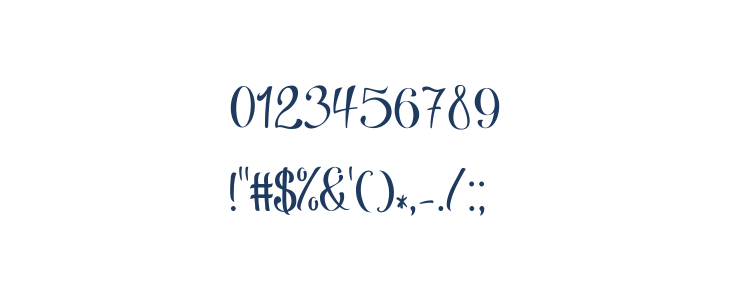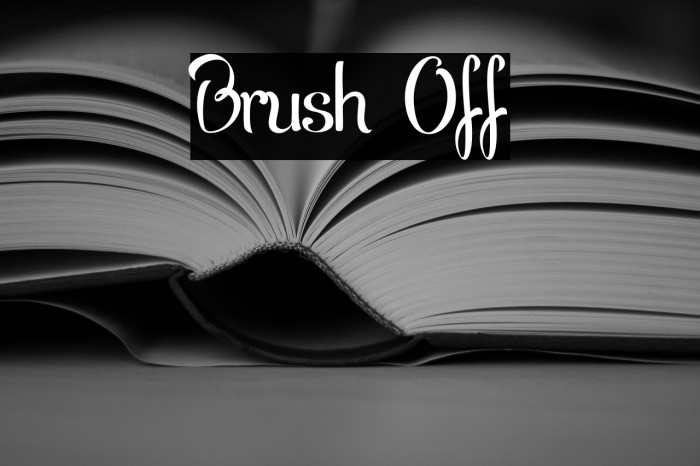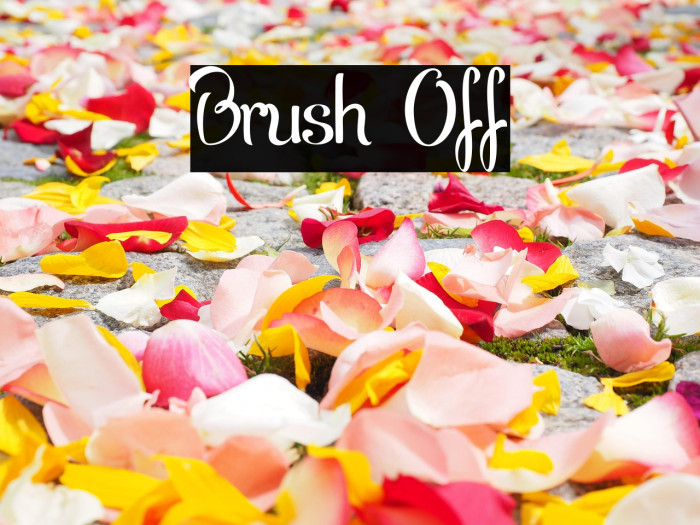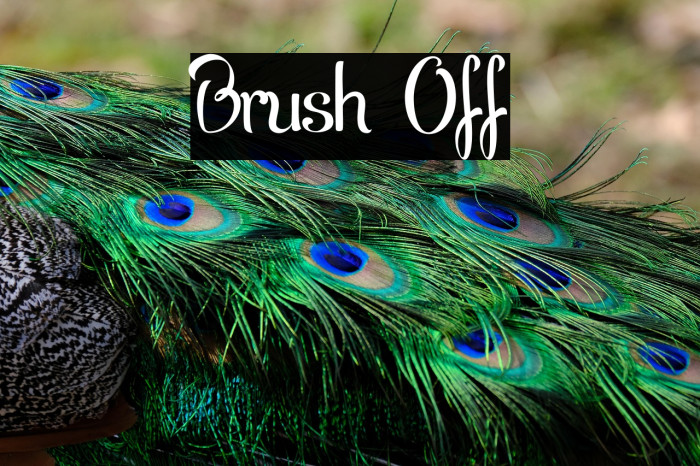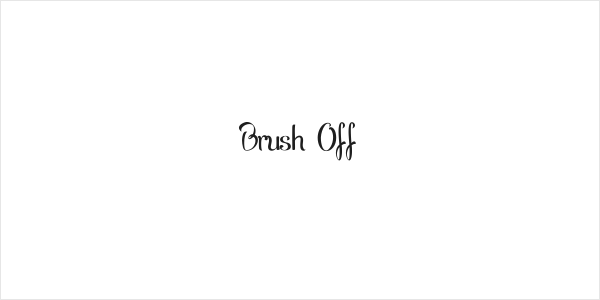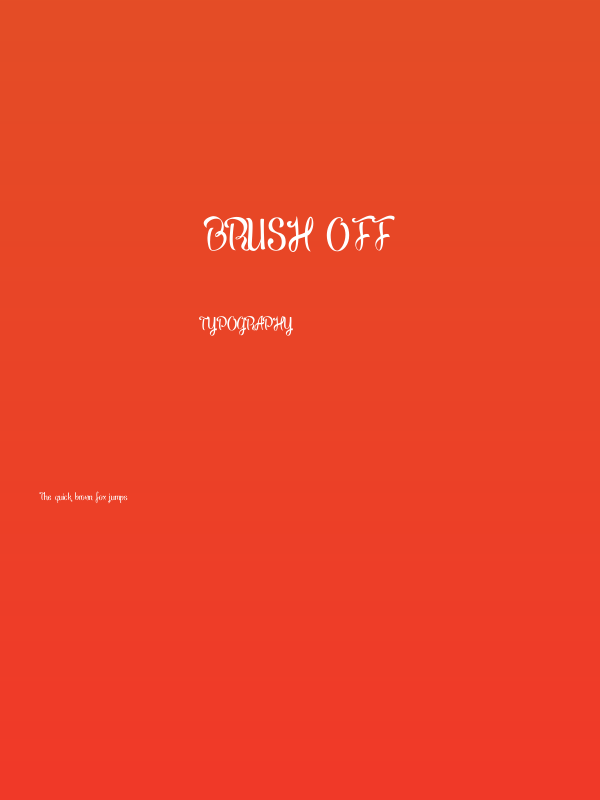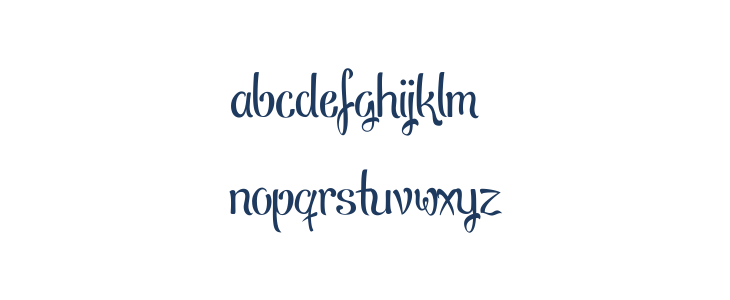
Brush Off Font
Brush Off Description
This font features a playful and artistic script style with a hand-drawn feel. The characters exhibit a fluid, cursive design with varying stroke widths that add a dynamic and lively appearance. The uppercase letters are bold and expressive, while the lowercase letters maintain a consistent flow, enhancing readability. The numerals and special characters are designed to complement the overall aesthetic, making them suitable for creative projects. The font's whimsical nature is ideal for adding a personal touch to designs, with its unique character shapes and decorative flourishes.